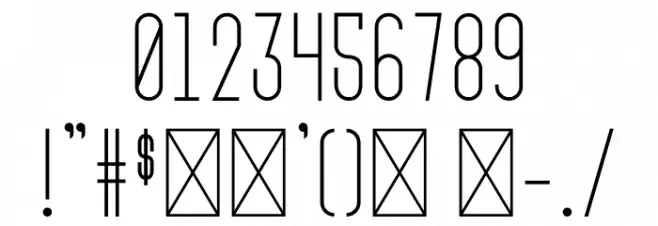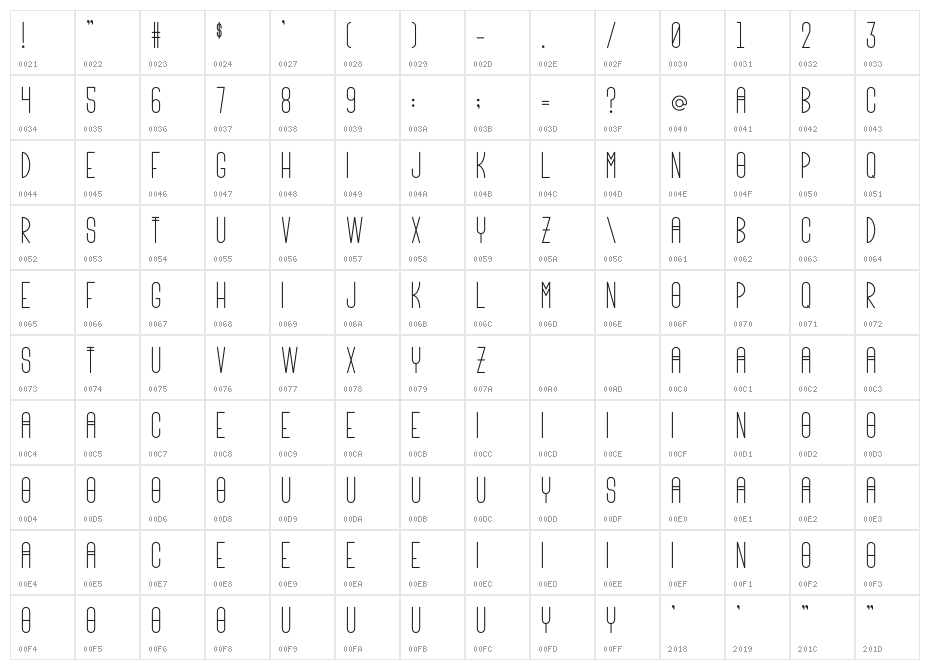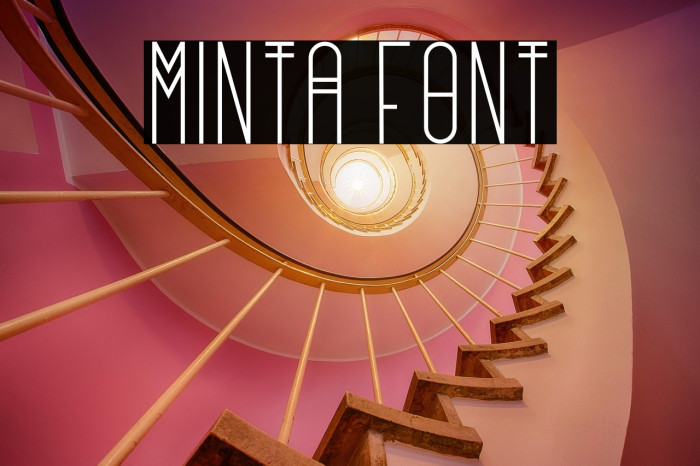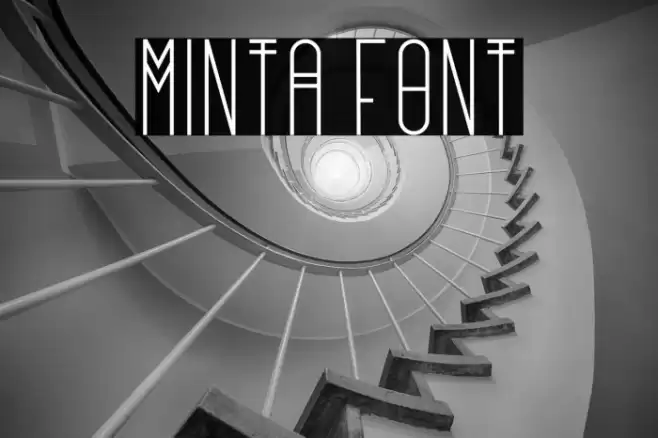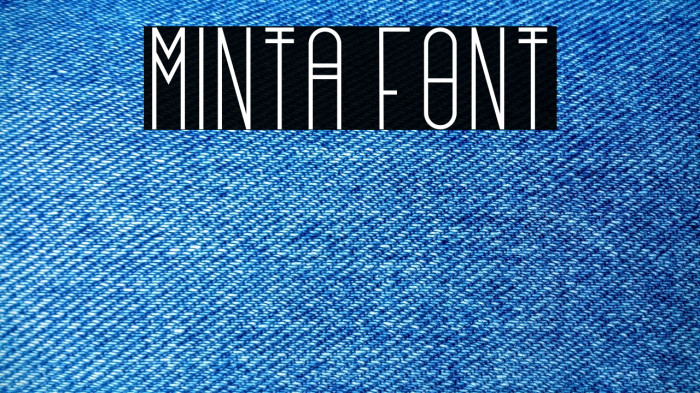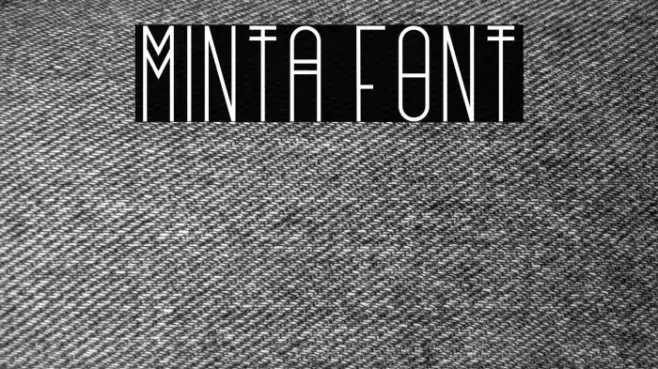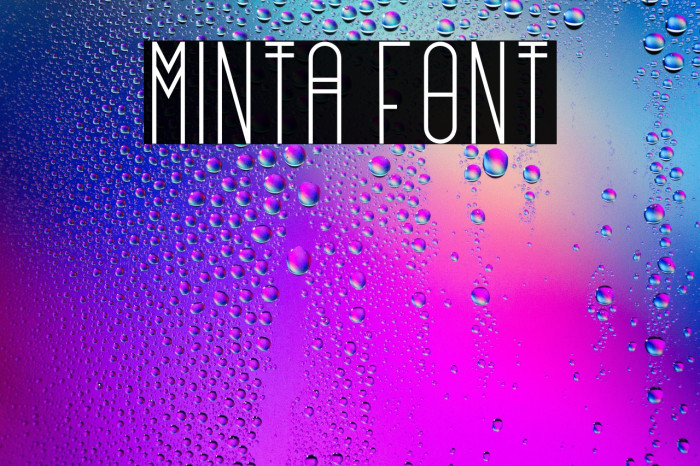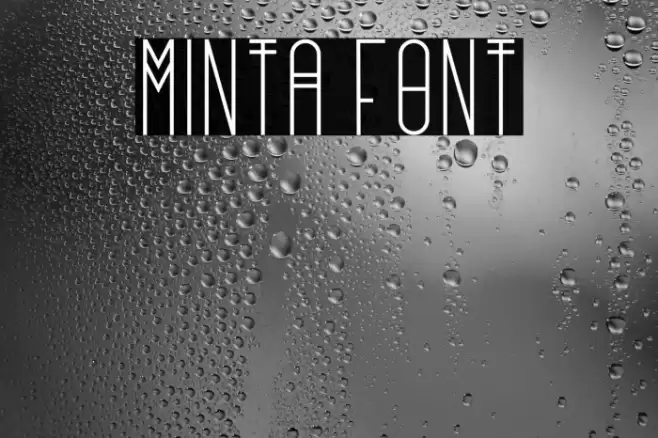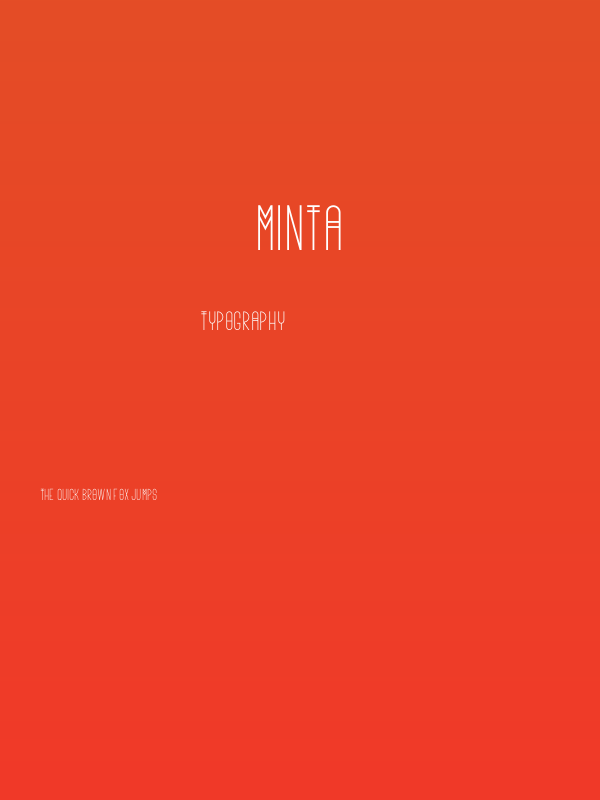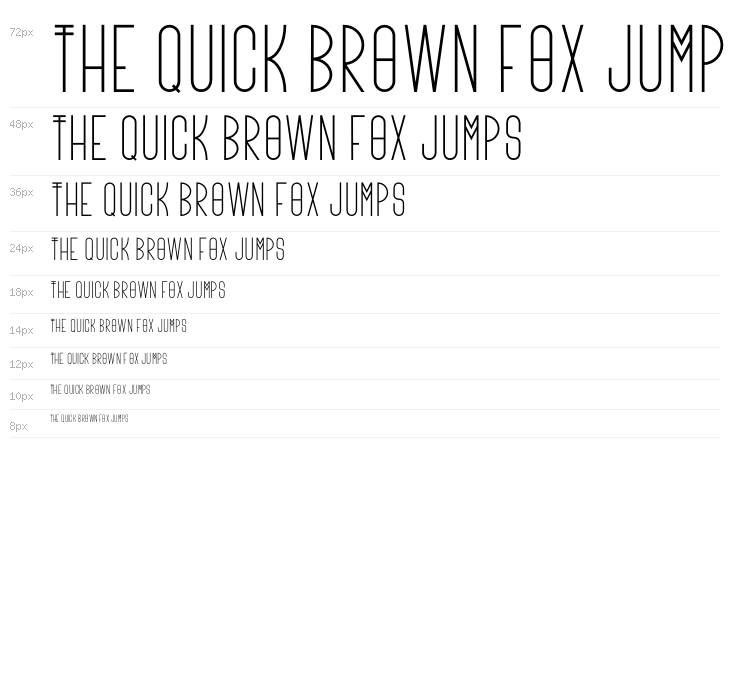
Minta Font
Minta Description
This font features a modern and geometric design with tall, narrow characters. The uppercase letters are distinct with sharp angles and clean lines, giving a futuristic and sleek appearance. The lowercase letters maintain the same geometric style, ensuring consistency throughout the typeface. The numerals are similarly designed, with a uniform height that aligns with the uppercase letters. Special characters are included, maintaining the same stylistic approach, making this font versatile for various applications. The overall look is minimalistic yet striking, ideal for projects that require a contemporary and sophisticated touch.